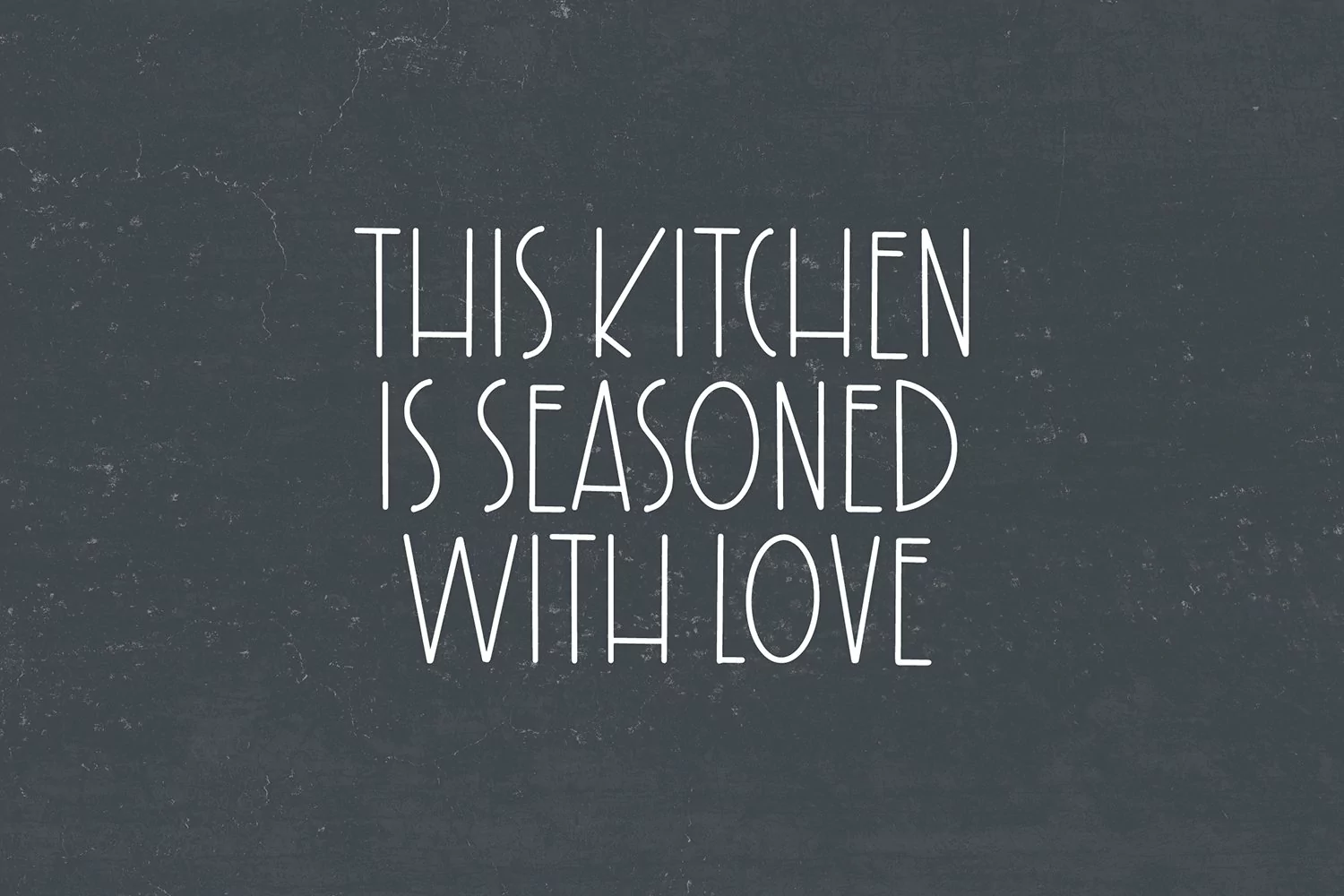
"ARTISAN BREAD" Stylish Farmhouse Font
This font is great for home decor, cards, and farmhouse living.
-all caps glyphs
-basic punctuation characters
-numbers
-intl characters